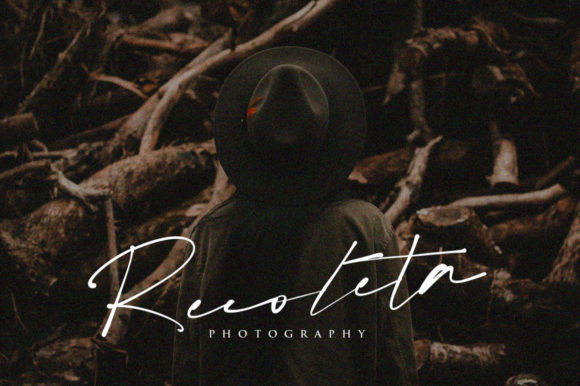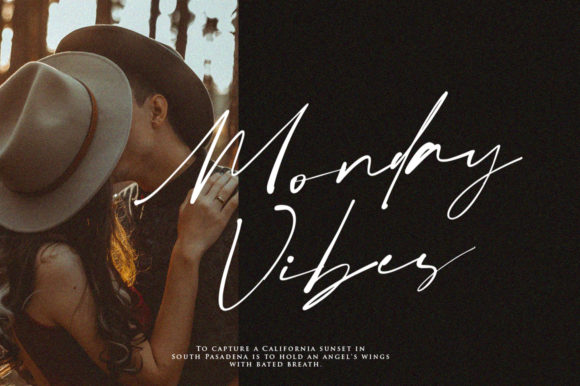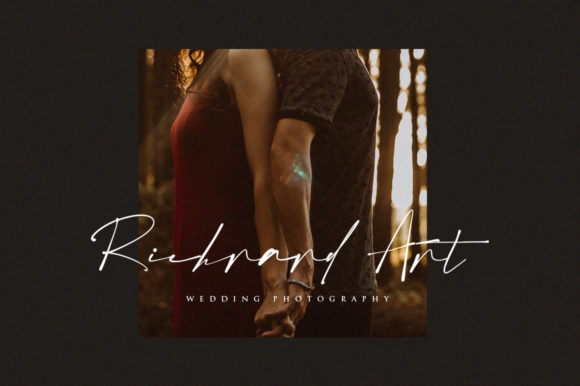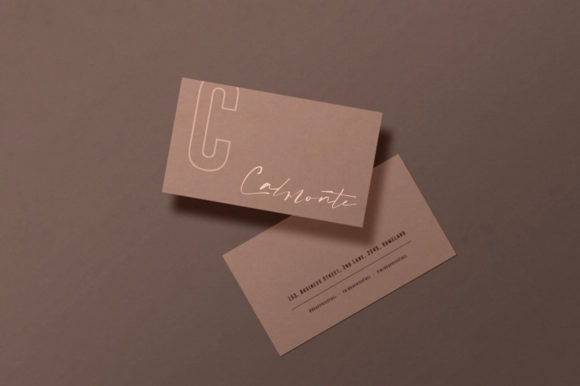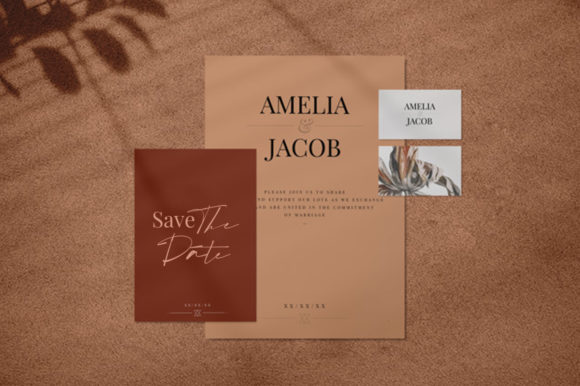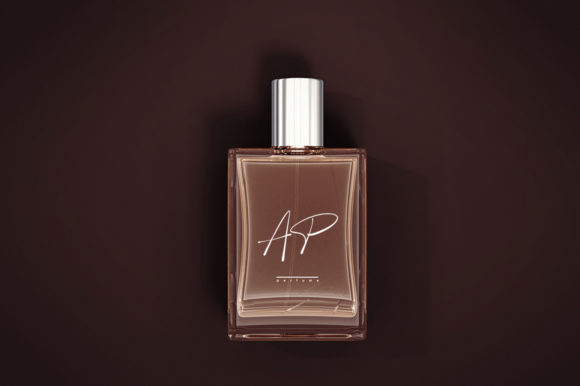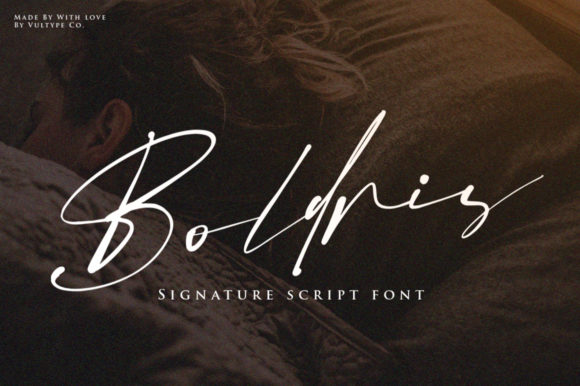
The Boldris Font: A Designer’s New Best Friend
I’ll never forget the moment I stumbled upon the Boldris font. I was working on a project for a client who wanted a elegant, yet modern look. I had spent hours scouring the internet for the perfect font, but nothing seemed quite right. That was until I saw Boldris – an exquisite handwritten font that immediately caught my eye. Its classy calligraphic influences and fresh, contemporary feel made it an instant favorite. In this article, I’ll share my love for Boldris, its features, and how to make the most of it in your designs.
An Honest Review of Boldris
What I Love About Boldris ✨
- 💫 Elegant and sophisticated, perfect for high-end projects
- 🎨 Versatile and adaptable to various design styles
- 🔥 Unique character set with plenty of personality
- ⚠️ Some users may find the font too ornate for certain projects
- 🤔 Limited use for body text due to its decorative nature
- Take advantage of OpenType features, such as glyphs and stylistic alternates, to add more personality to your text.
The Story Behind Boldris
Boldris was designed with the intention of creating a font that would be both elegant and modern. The designer, inspired by traditional calligraphy, sought to create a font that would be perfect for high-end projects and creative endeavors. With its unique character set and versatile design, Boldris has become a favorite among designers and crafters alike.
Q: What type of projects is Boldris best suited for?
A: Boldris is perfect for high-end projects, formal events, and creative endeavors that require a touch of elegance.
Q: Can I use Boldris for body text?
A: While Boldris is highly legible, it’s not recommended for body text due to its decorative nature. It’s best used for headings, titles, or emphasis.
Q: Does Boldris come with OpenType features?
A: Yes, Boldris comes with OpenType features, including glyphs and stylistic alternates, which can be used to add more personality to your text.